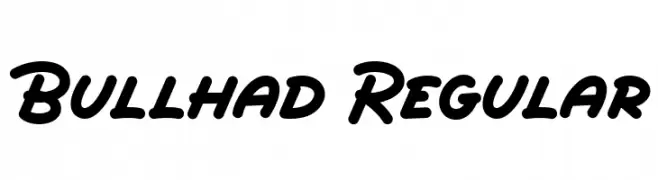
( KELGE Fonts - www.behance.net/contactkel17e1 )
A sharp, elongated font with a mysterious and eerie style.
( London's Letters - www.londonsletters.com/ )
A bold, playful font with illustrated trash cans for an eco-friendly theme.
( Fonts by Pria Admaja )
A playful, bold font with rounded, hand-drawn characters.
( Fonts by Susi Type )
A bold, dynamic script font with flowing, cursive letterforms.
( Fonts by Malre )
A bold, classic serif font with high contrast and elegant details.
( Fonts by Malre )
A high-contrast serif font with elegant, sharp serifs and a classic style.
A bold, modern font with thick strokes and unique curves.
An elegant, flowing script font with smooth, continuous strokes and a handwritten touch.
A classic, elegant script font with flowing, cursive letterforms.